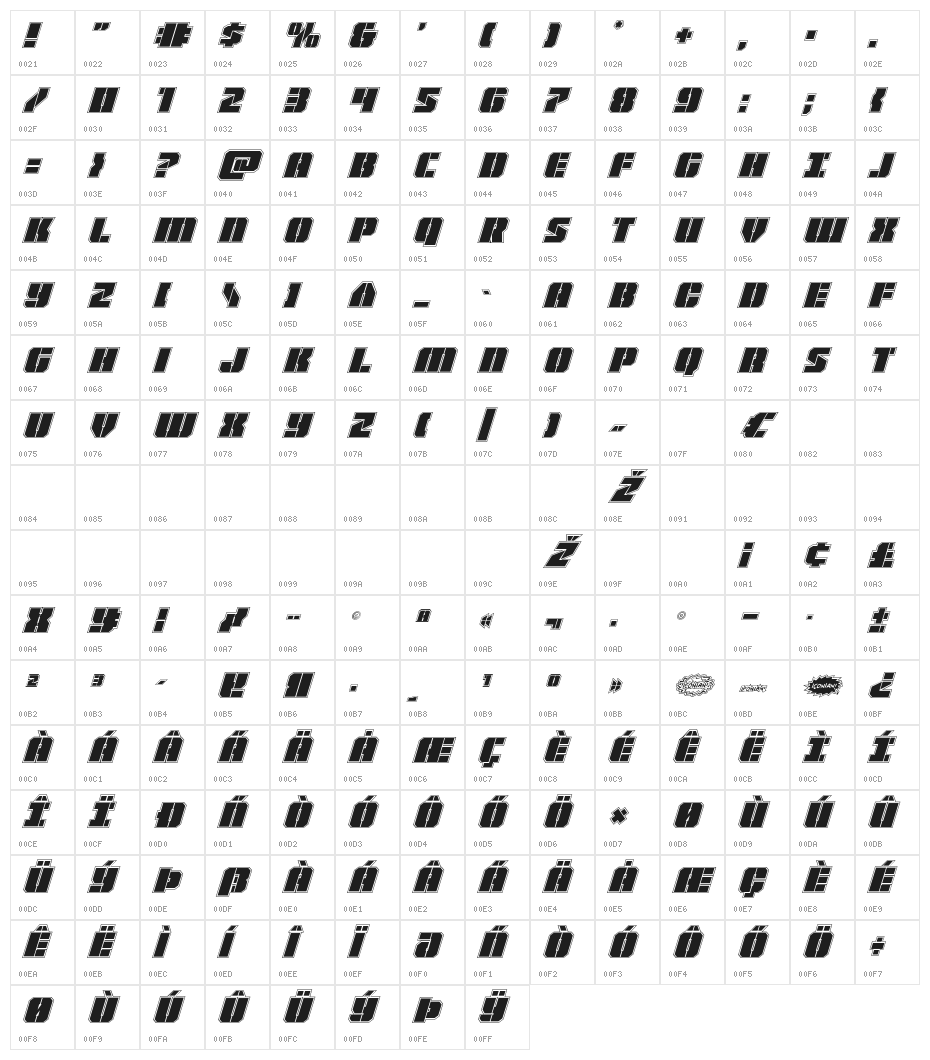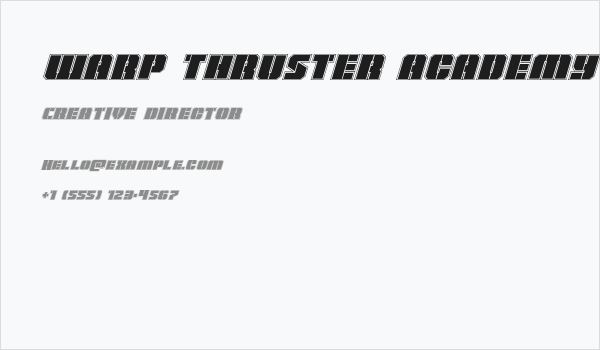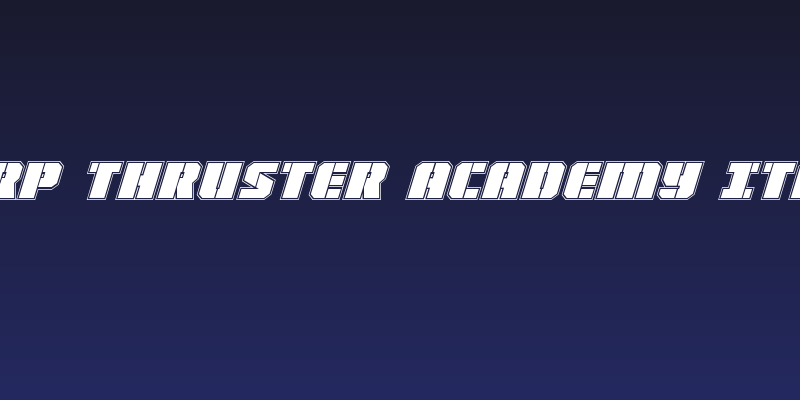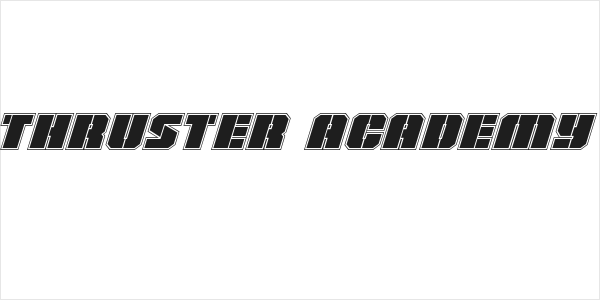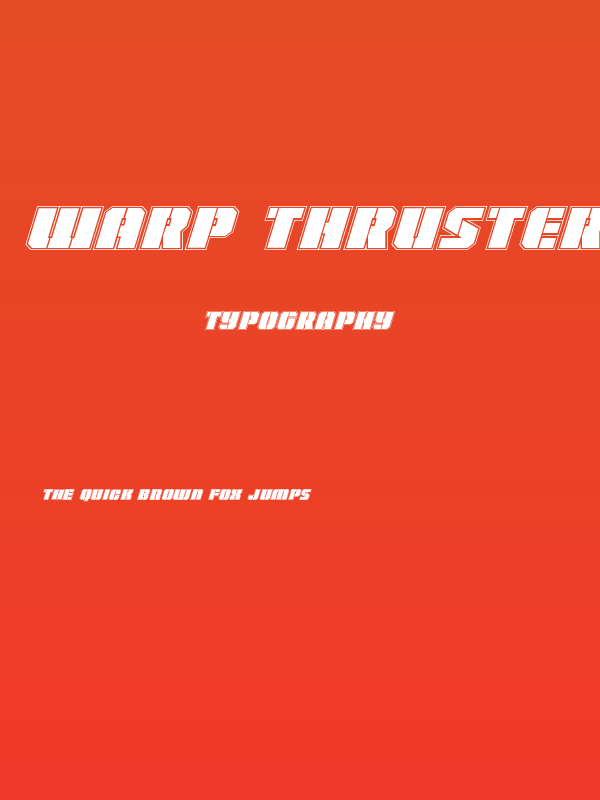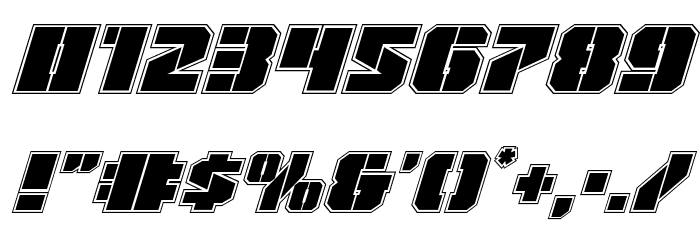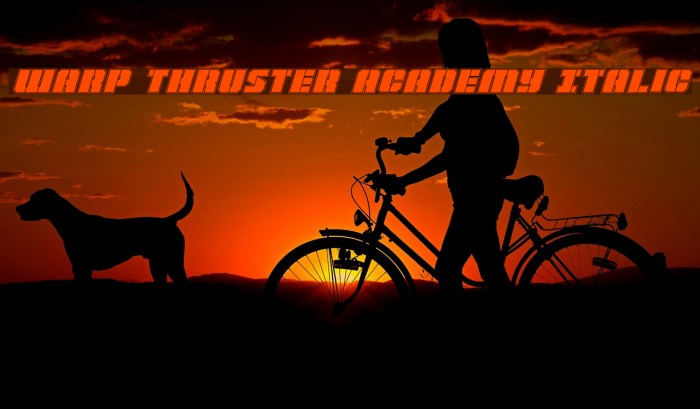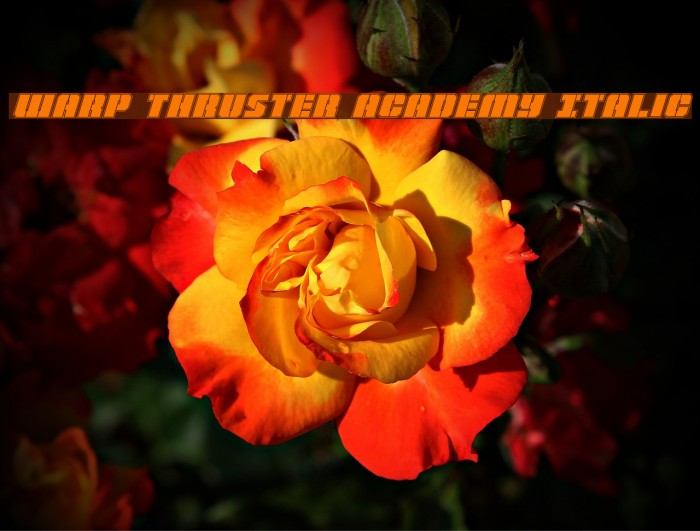
Warp Thruster Academy Italic Font
Warp Thruster Academy Italic Description
This font features a bold, futuristic design with a distinct italic slant, giving it a dynamic and forward-moving appearance. The characters are blocky and geometric, with sharp angles and a strong presence. The thick strokes and outlined style create a sense of depth and dimension, making it stand out prominently. The uppercase and lowercase letters maintain a consistent style, while the numbers and special characters complement the overall aesthetic. This font is ideal for projects that require a modern, tech-inspired look.
| Proposed Projects | Ideal for sci-fi themed posters, video game titles, tech branding, and futuristic event flyers. |